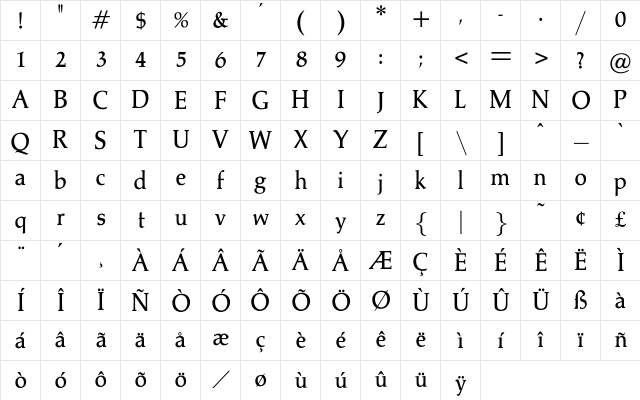
O PTIPathwayMedCondAgency
O PTIPathwayMedCondAgency Font Preview
O PTIPathwayMedCondAgency Uppercase Preview
O PTIPathwayMedCondAgency Lowercase Preview
O PTIPathwayMedCondAgency Numeric Preview
O PTIPathwayMedCondAgency Character Map
Complete O PTIPathwayMedCondAgency glyph index. Displaying only characters natively supported by O PTIPathwayMedCondAgency font.
Design Context for O
O is a composed and adaptable typeface that performs quietly and consistently across a wide range of design contexts. Its narrow stance lets it pack a punch even in space-constrained designs.